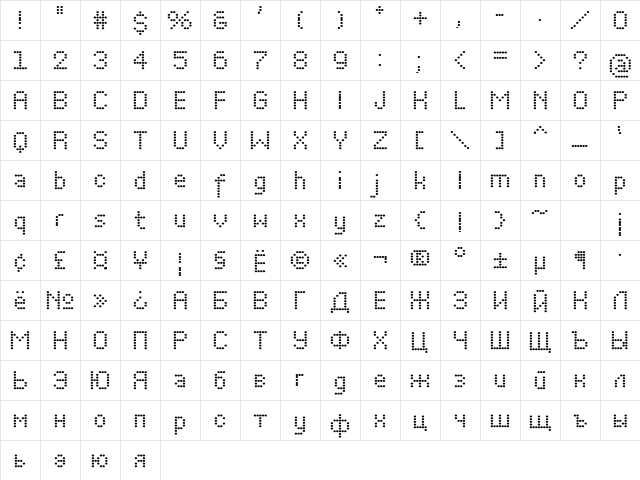
PerfoOval Normal Font Preview
PerfoOval Normal
PerfoOval Normal Font Details
Design Context for PerfoOval Typeface
PerfoOval takes a measured approach to typography — its balanced proportions and neutral character make it a reliable workhorse for both digital and print work.